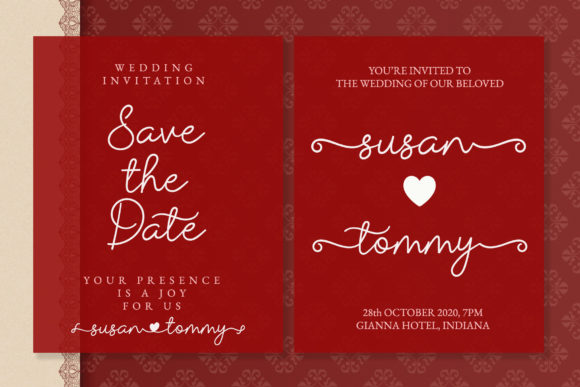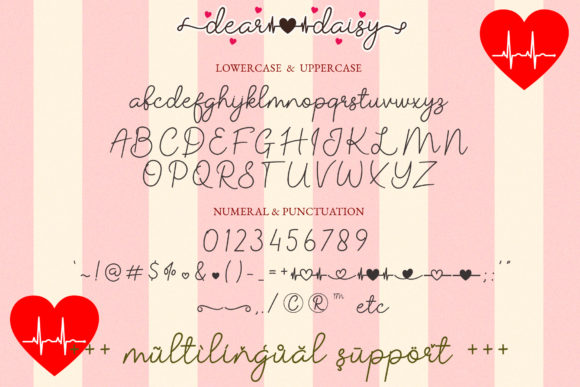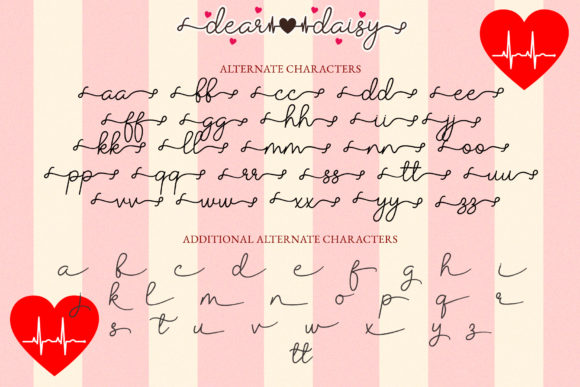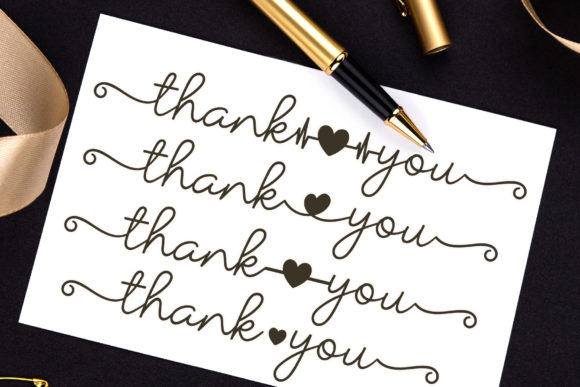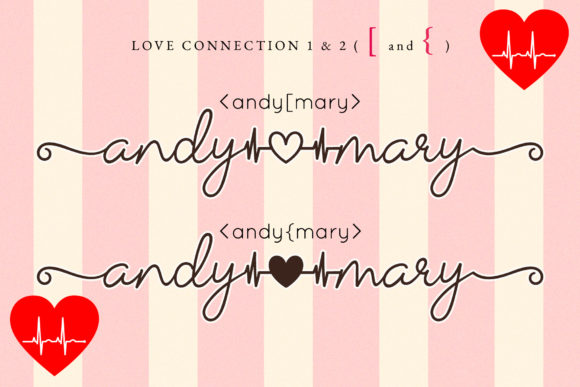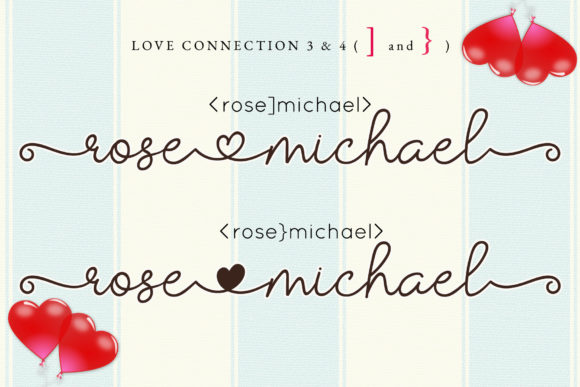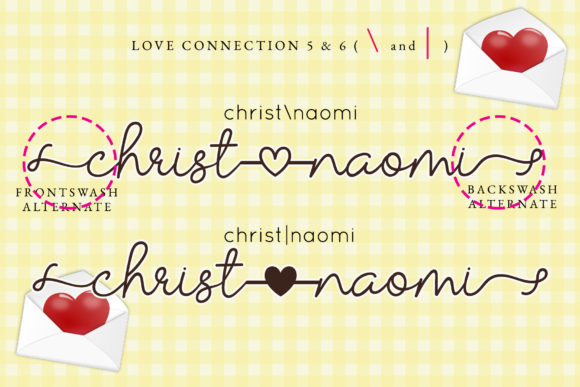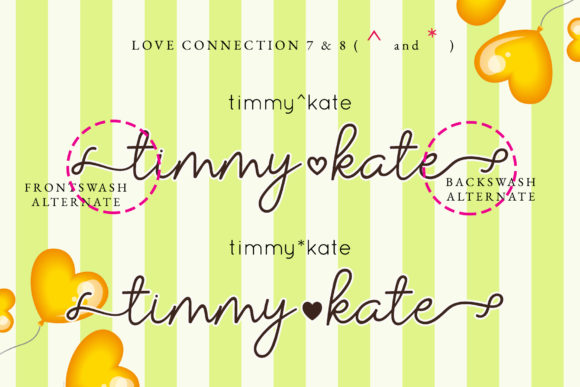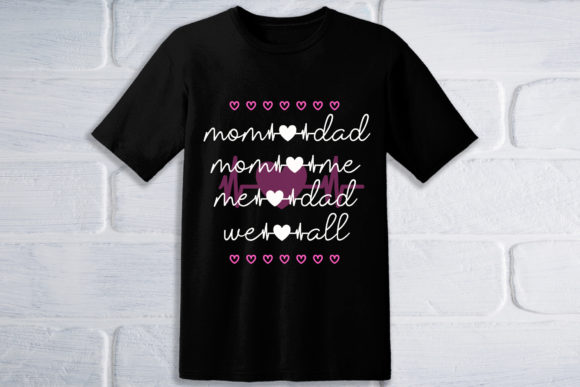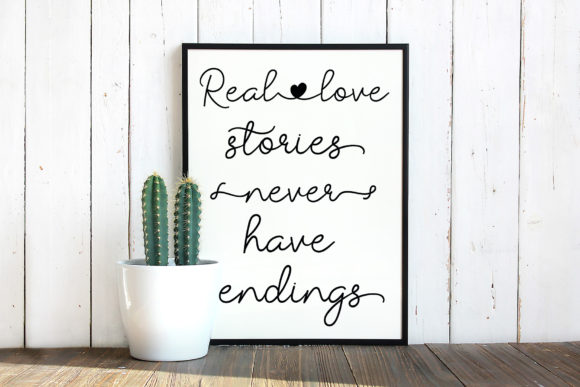
Dear Daisy Font
Dear Daisy is a charming and elegant handwritten font. This font is the perfect fit for all of your logos, branding, social media, and crafty DIY projects.